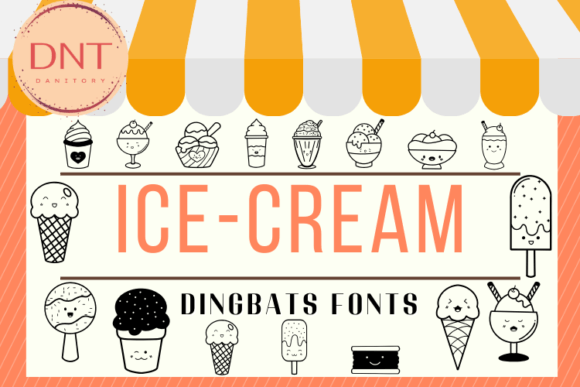
Looking for the best font for your Android Ttf? Look no further than the Icecream Font! Created by the talented designer danita.kukkai, this dingbats font is the perfect choice for anyone who wants to add a touch of sweetness to their design projects.
The Icecream Font features a collection of small ice creams that are as delicious as they are cute. Each ice cream has been carefully designed with charming details, making them the perfect addition to any playful design project. Whether you're designing a website, creating an invitation, or working on a social media graphic, the Icecream Font is the perfect way to add a scoop of cuteness to your creations.
Not only is the Icecream Font adorable, it's also highly versatile. With a range of different ice cream designs to choose from, you'll be able to find the perfect match for any project. And because it's a dingbats font, it's easy to use and can be scaled to any size without losing quality.